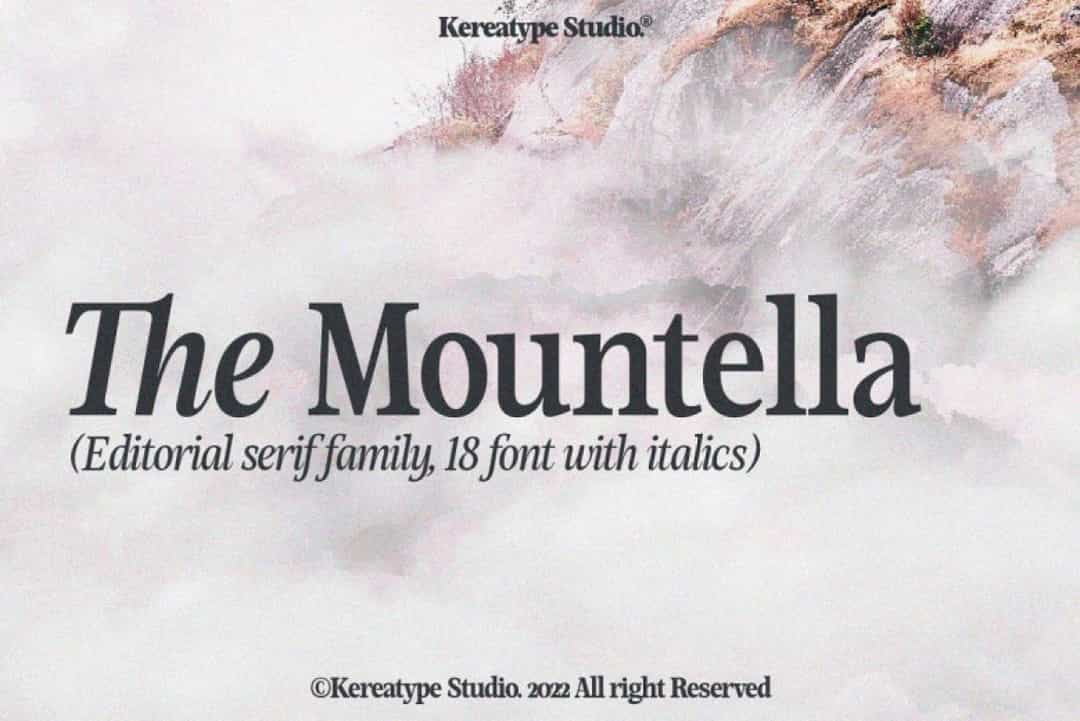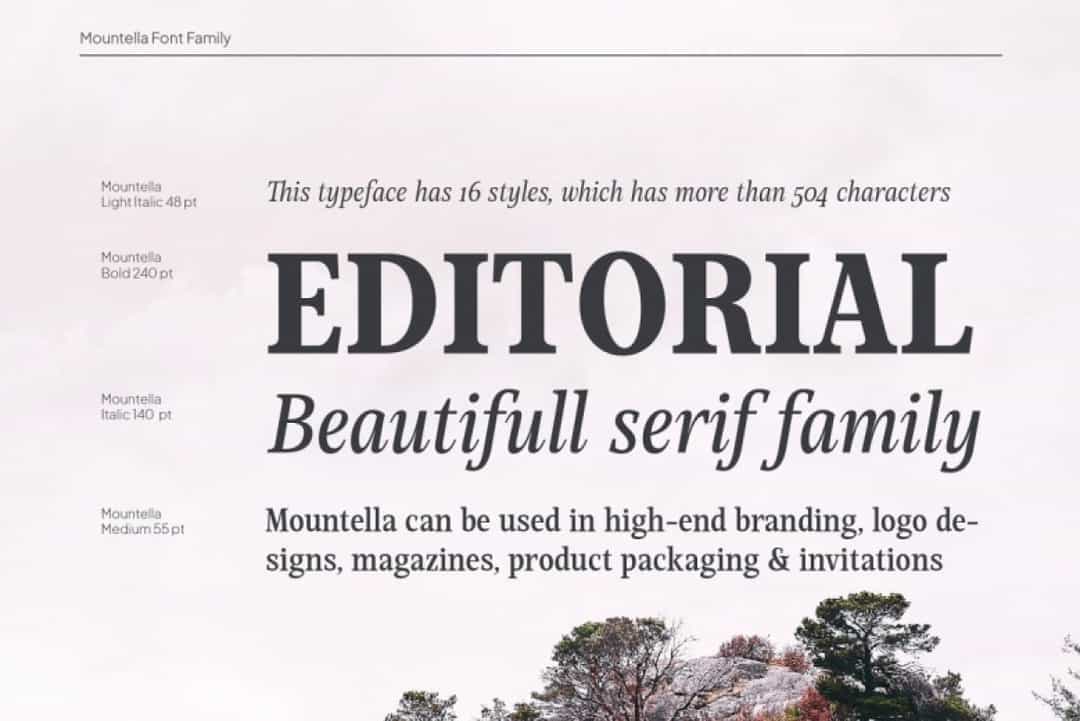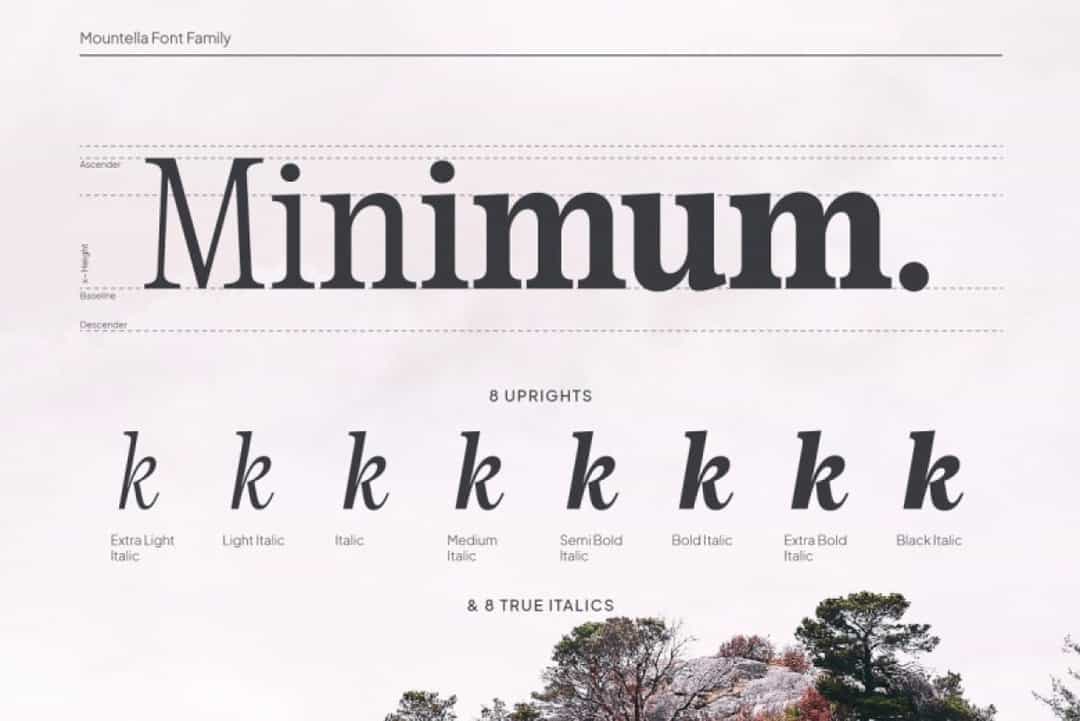
Mountella is an elegant and contemporary serif typeface family comprised of 18 fonts that range from uprights, italics, variable fonts (ranging from Extra Light to Black ) with over 500 characters to create its nostalgic charm! Mountella offers exquisite visual details which provide its striking look in small or large configurations as display or body text.